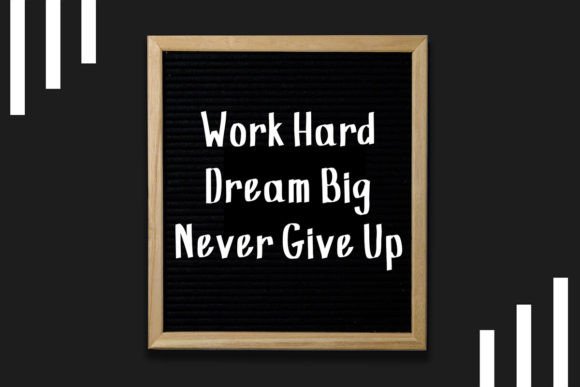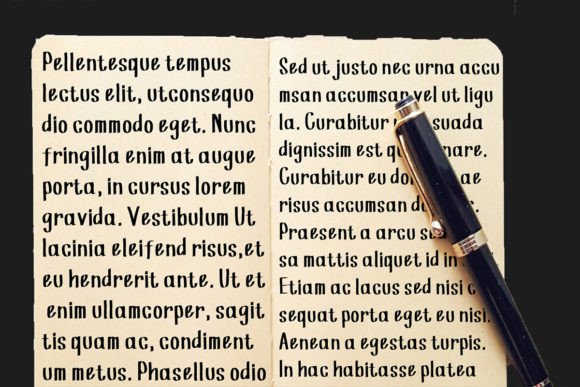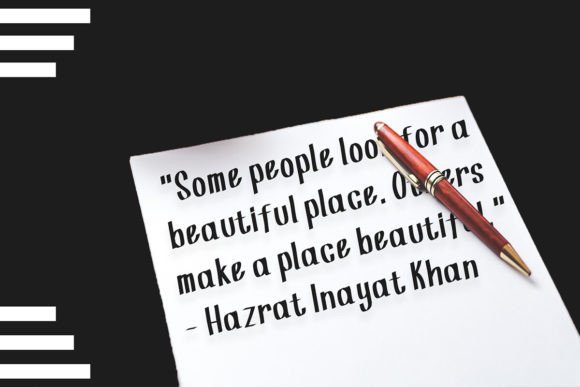
Introduction to Radiya Font
Radiya is a handwritten font that uses a calligraphy pen, so the shape of each letter is unique and beautiful.
Key Features of Radiya Font
Why Choose Radiya Font?
Radiya Font offers exceptional quality and versatility, making it a valuable addition to your design toolkit. Whether you’re creating for personal projects or commercial use, Radiya Font delivers professional results.